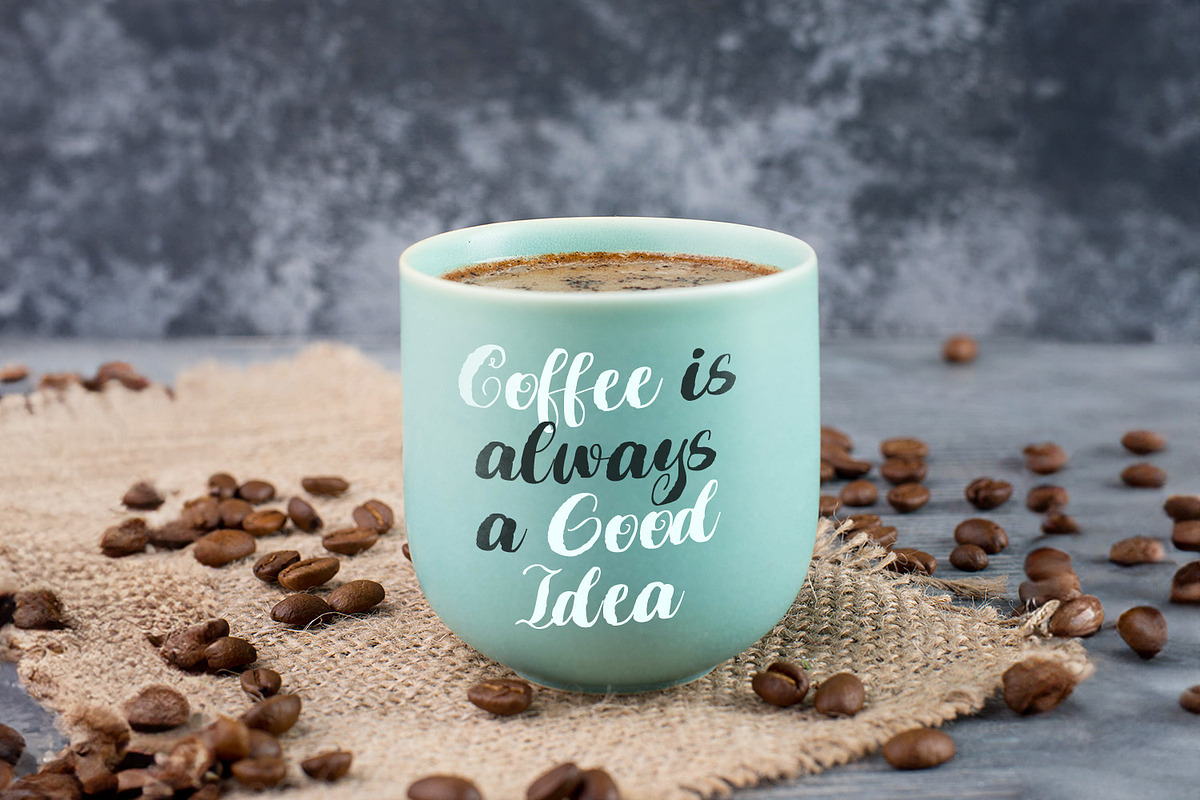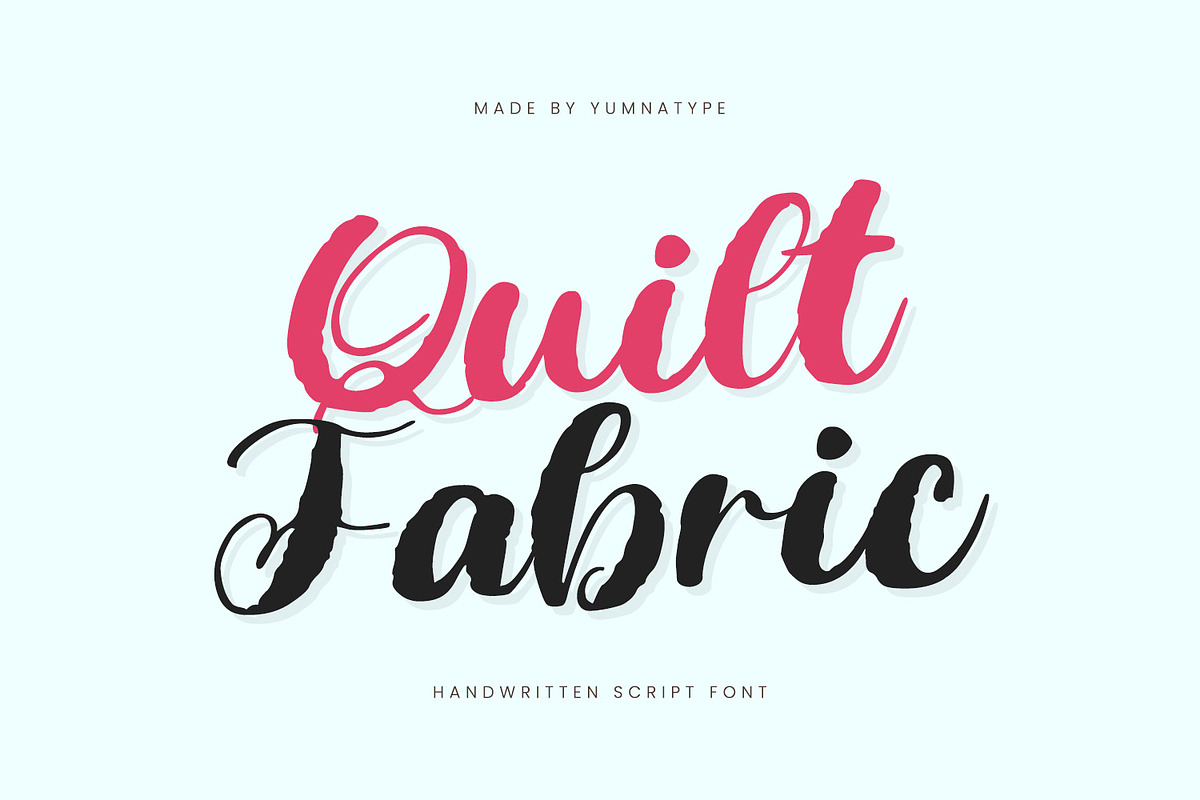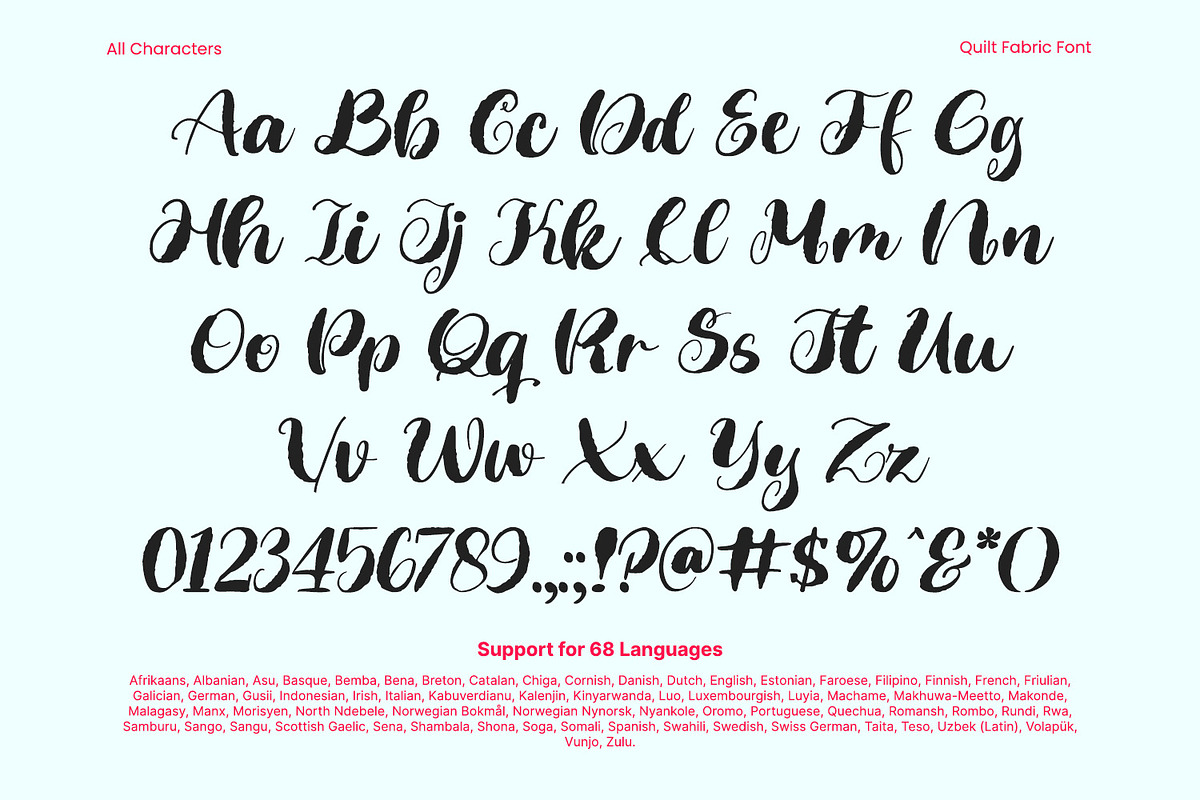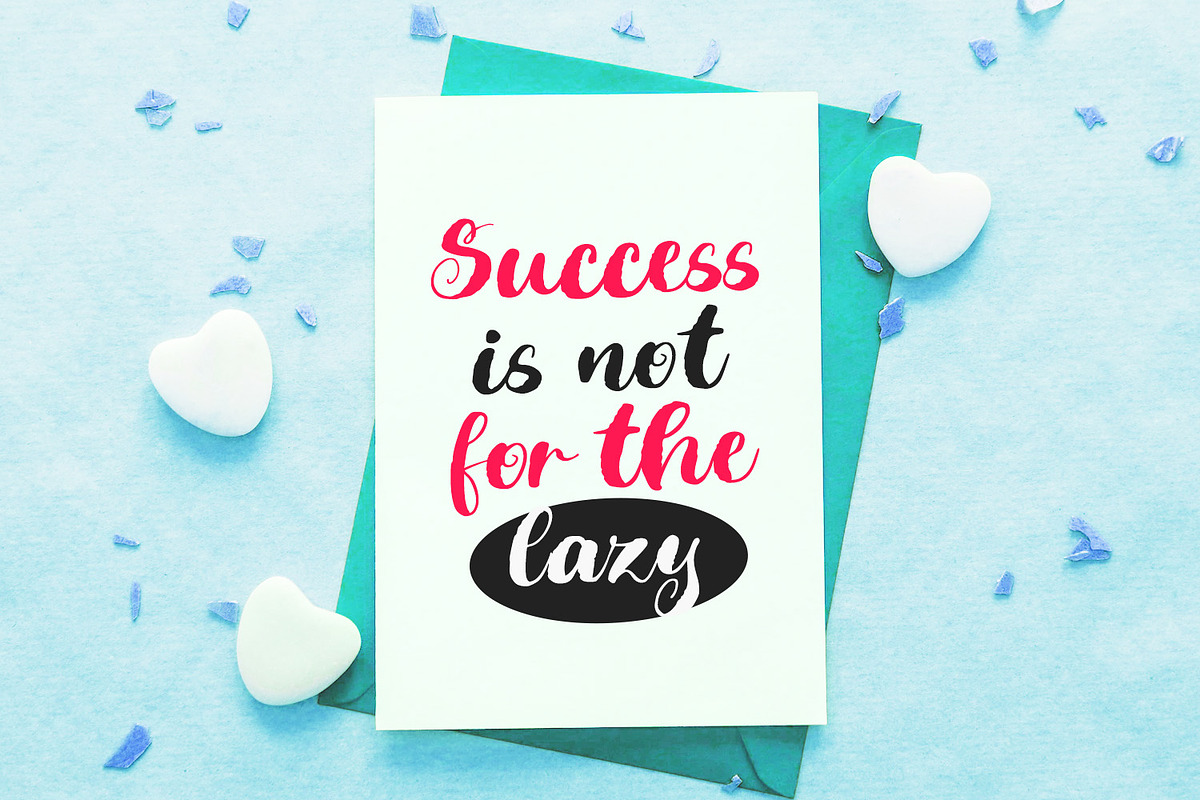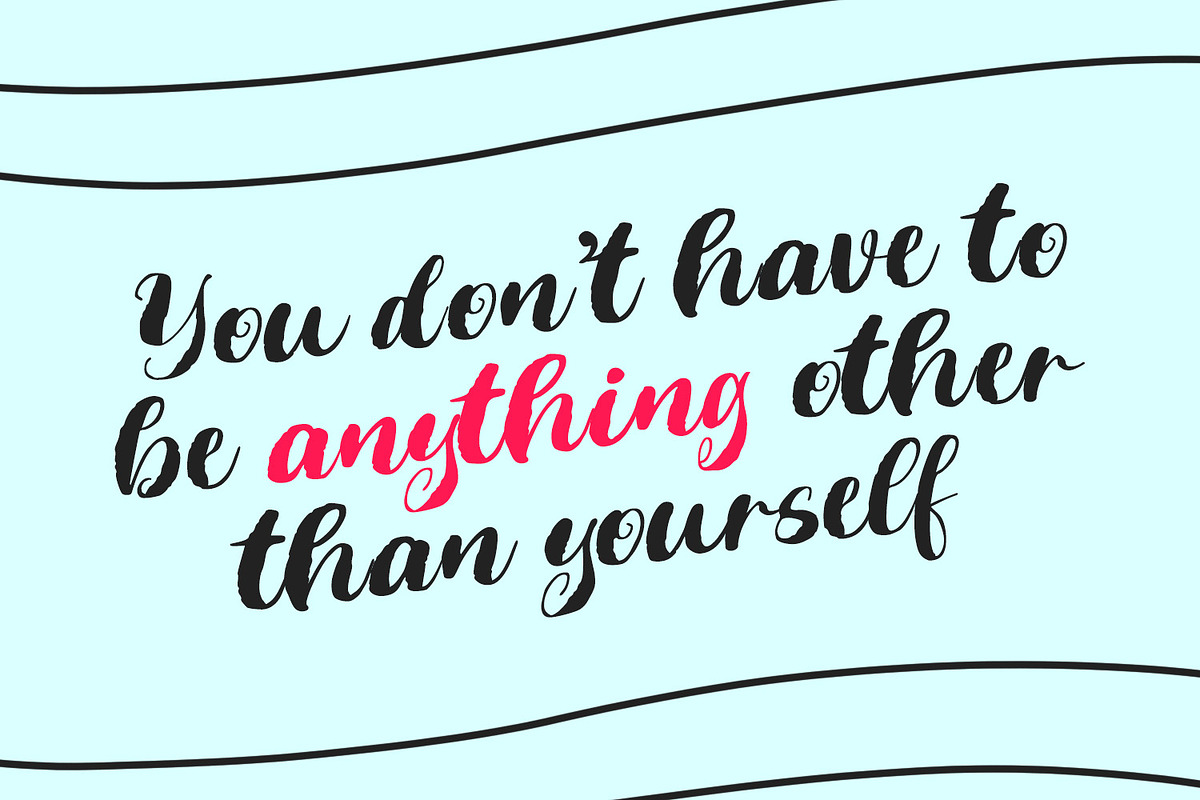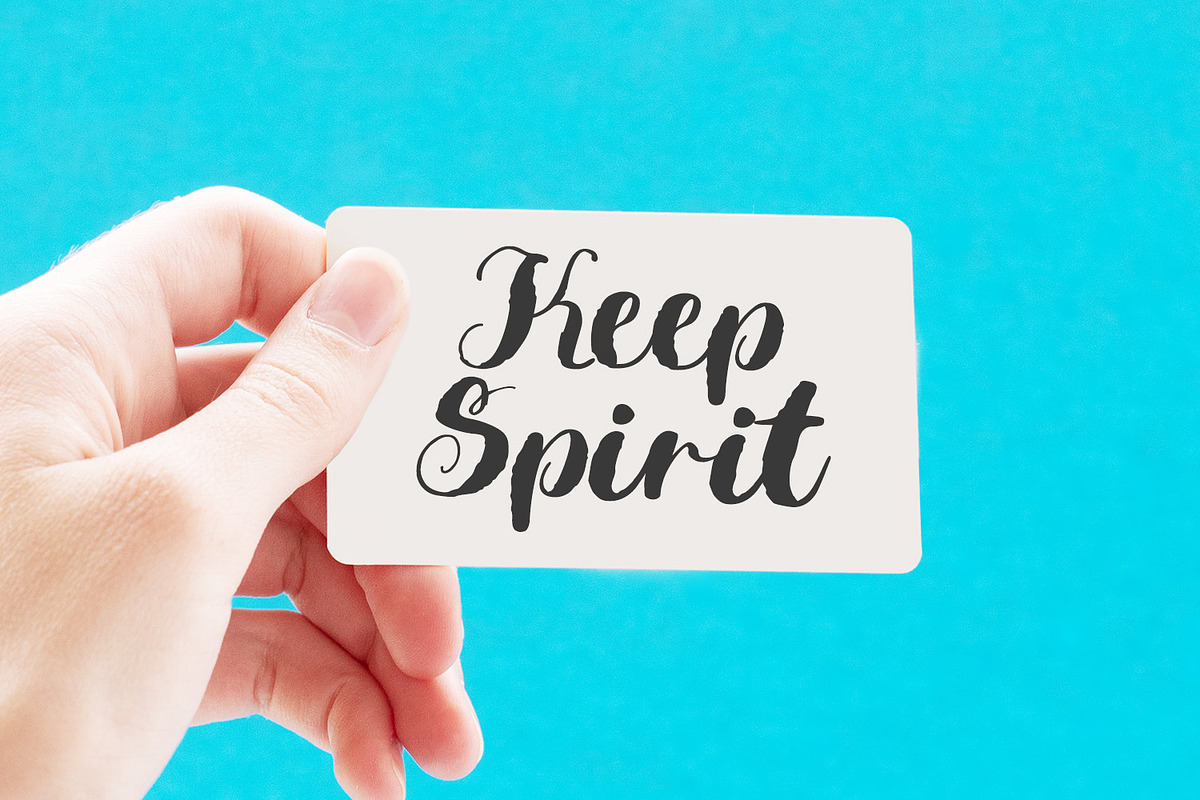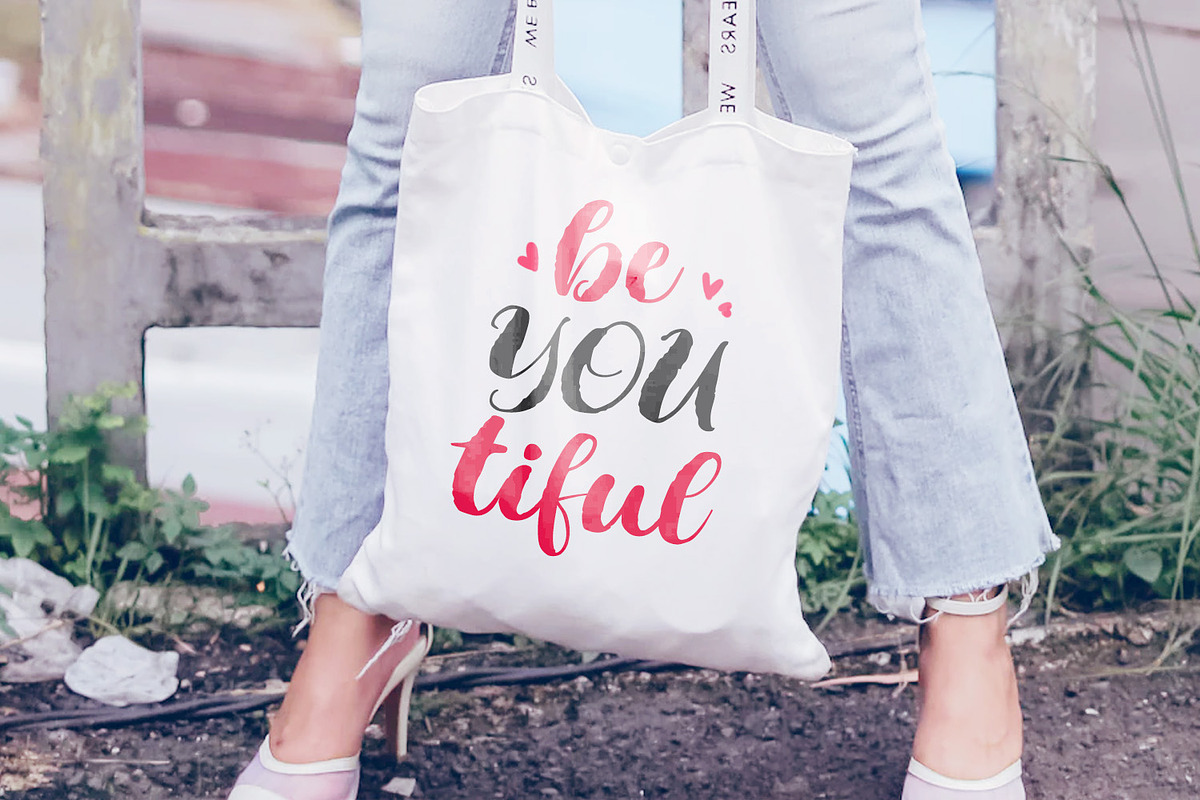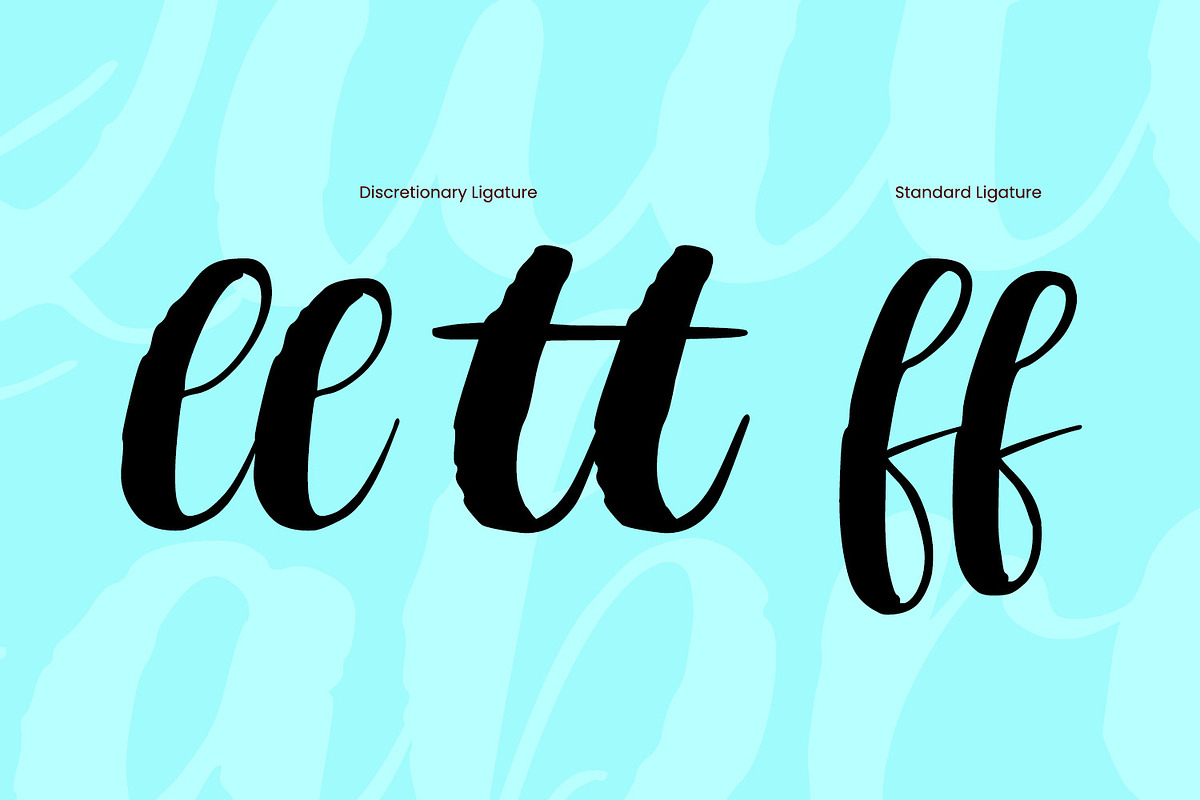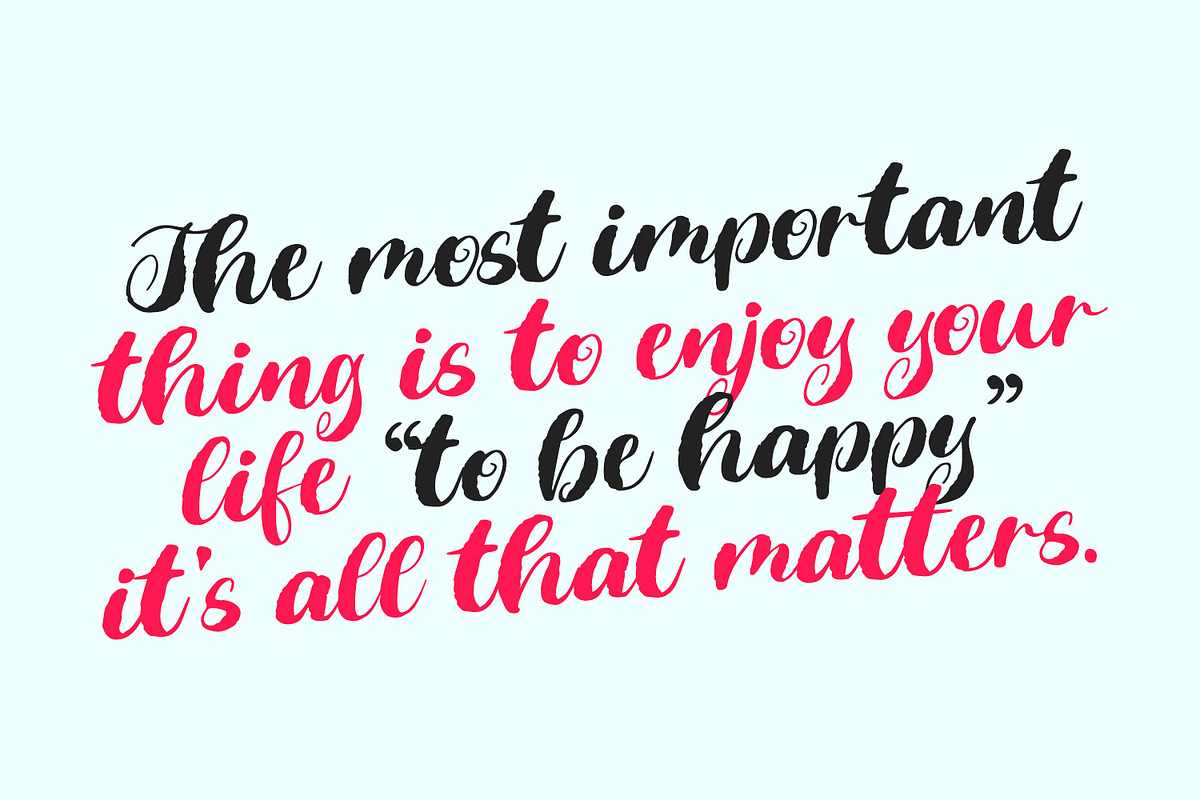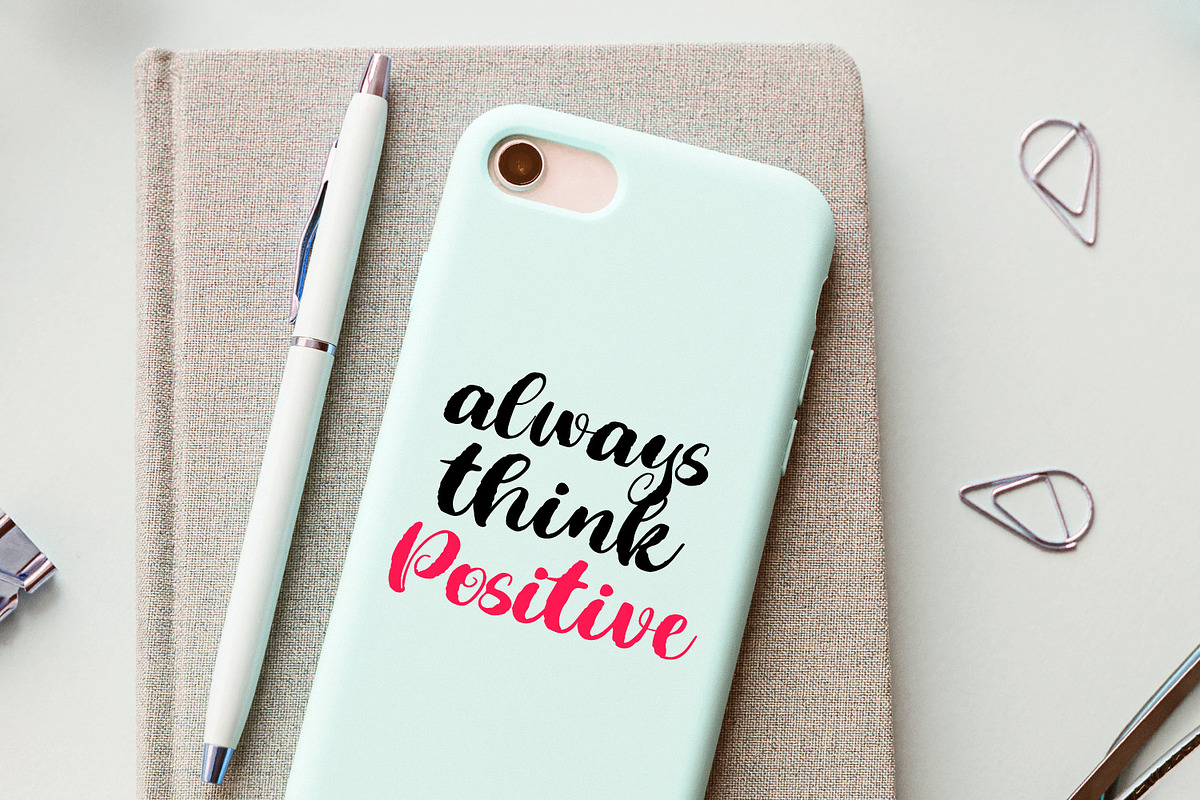
Quilt Fabric
Quilt Fabric is a charming script font that captures the essence of handcrafted beauty. The letters of this font are connected to each other, creating a seamless and fluid look. With a quite thick weight, Quilt Fabric exudes a sense of warmth and boldness. The rough outline of Quilt Fabric adds an extra layer of character, giving it an authentic, textured feel. This unique detail evokes the tactile nature of quilted fabric, enhancing the font's handmade appearance.
Despite its bold weight, Quilt Fabric maintains excellent readability, ensuring that your message comes across clearly while retaining a distinctive and artistic flair. The connected letters provide a natural and effortless flow, making this font ideal for creating beautiful, cohesive text. In addition, enjoy the features here.
Quilt Fabric fits in headlines, logos, posters, flyers, branding materials, print media, editorial layouts, and many more designs. Find out more ways to use this font by taking a look at the font preview.